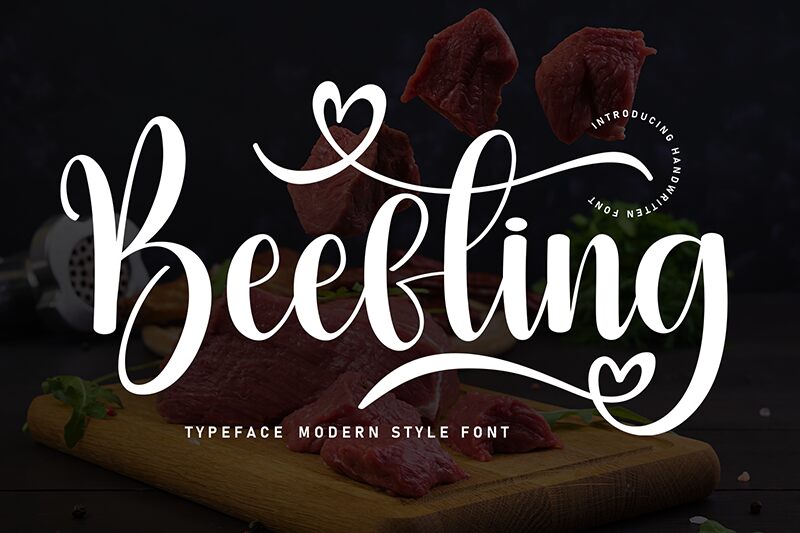
Beefting font is a free-flowing script typeface from Scratchones that forms an addictive visual rhythm as the letters follow one another. The handwriting-styled font mixes lower and uppercase letters, giving variance as the size of each letter differs from the items that precede and succeed it. The elegant font was designed to display its natural imperfections in both letters and numbers for authenticity, combining vintage handwriting with a modern flare.
Enthusiasm and discipline combined can only lead to commendable first results which are easily obtained with Beefting for all users. Featured on posters, apparel designs, logotypes, online platforms, stationery presentations, and signage, as well as inventory lists and catalog designs. For the font, secrecy means nothing as it works for most Instagram users. Established pages on Instagram require a typeface that easily connects with its audience, with posts and instant stories that demand the same connection.